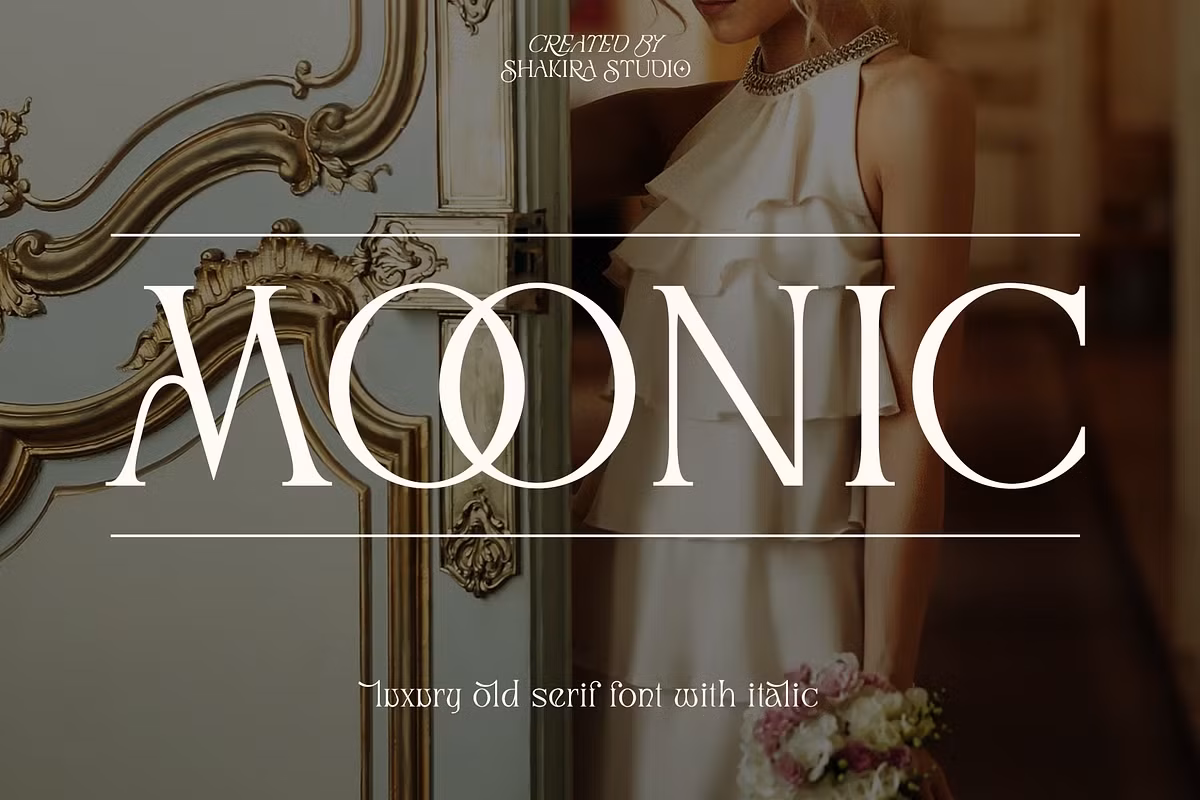
Monic - Luxury Serif Font Free Download
Please note, you must purchase this font for commercial use. However, you can easily download Monic - Luxury Serif Font Free Download for personal use and testing purposes. Monic - Luxury Serif Font is an elegant and refined typeface that exudes sophistication and class. Perfect for high-end branding, luxury product packaging, fashion magazines, and upscale invitations, this font combines timeless design with modern sensibilities. Its clean lines, graceful serifs, and carefully crafted letterforms make Monic - Luxury Serif Font Free Download an ideal choice for projects that require a touch of luxury and professionalism. Whether you're designing a premium logo or an elegant editorial layout, this font will elevate your project with its chic, timeless aesthetic. Try Monic - Luxury Serif Font Free Download today and explore its luxurious appeal before committing to a commercial license.